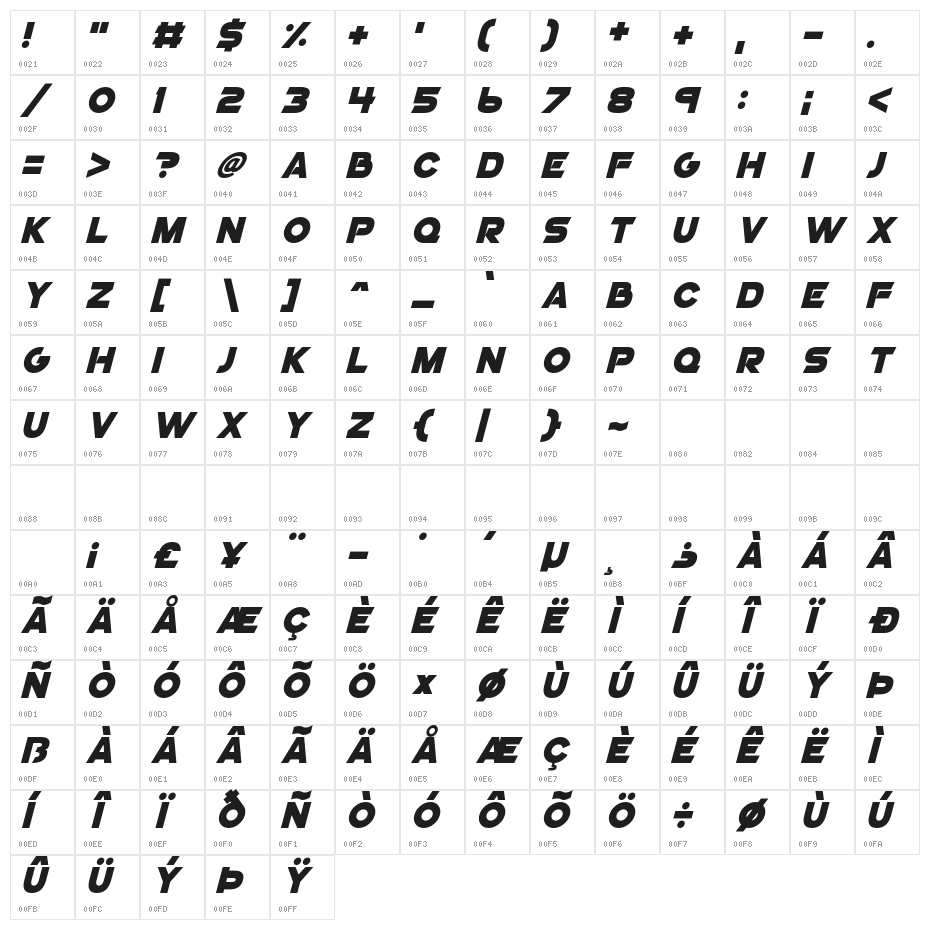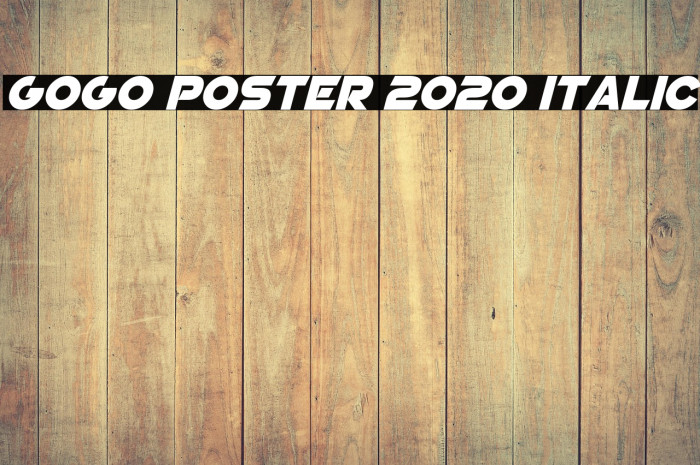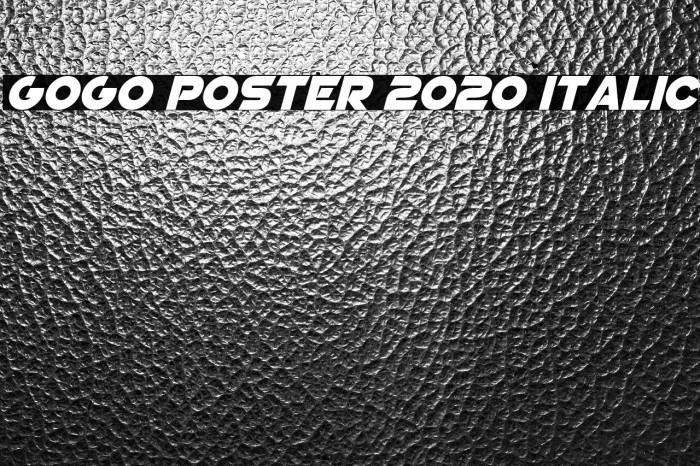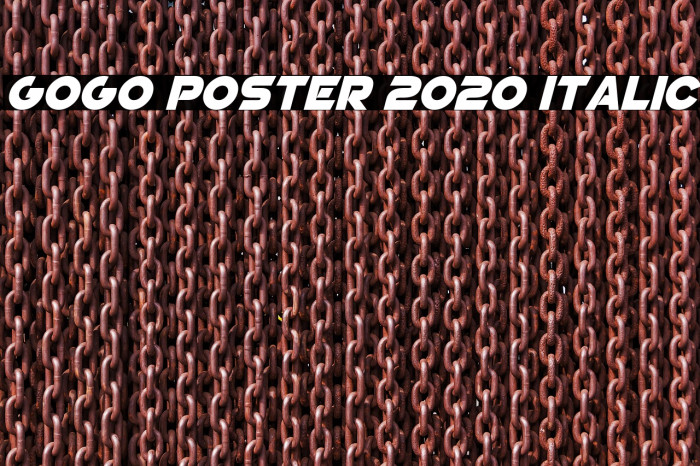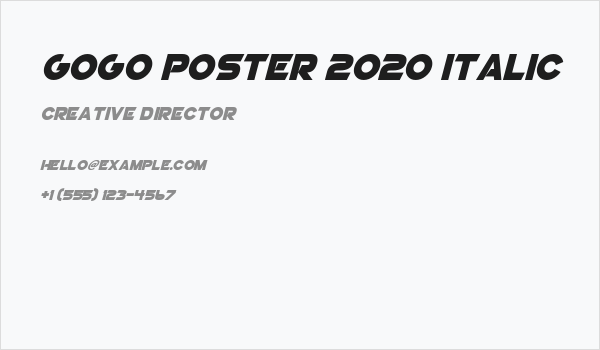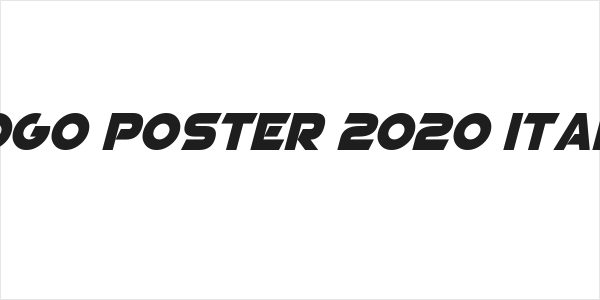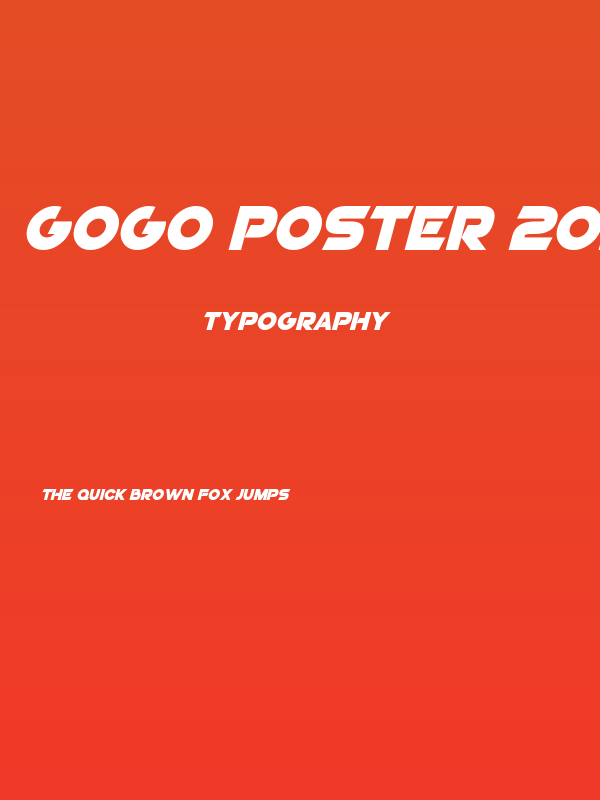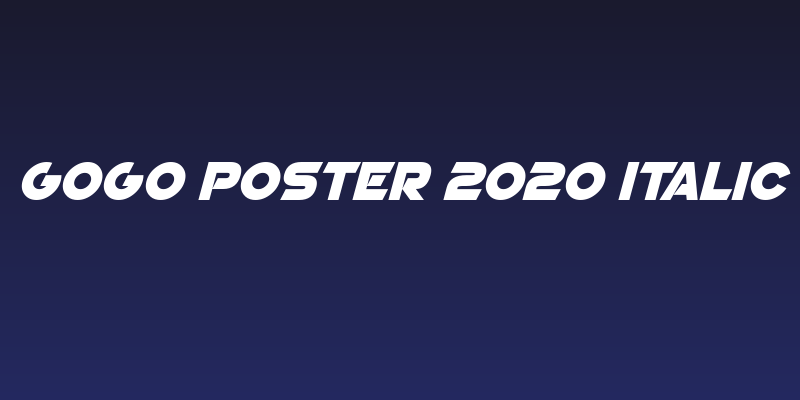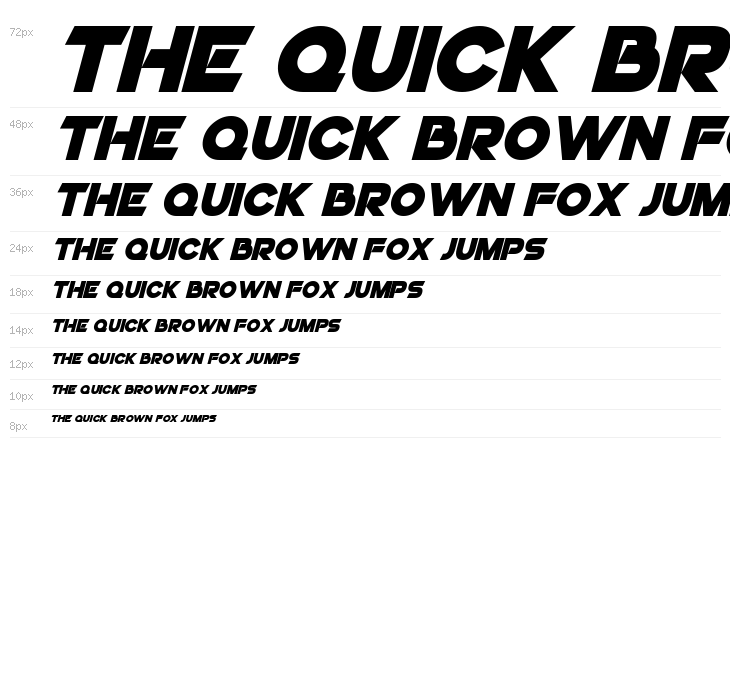
GoGo Poster 2020 Italic Font
GoGo Poster 2020 Italic Description
This font features a bold and dynamic design with a strong italic slant, giving it a sense of motion and energy. The characters are thick and robust, with a modern and futuristic aesthetic. The uppercase and lowercase letters maintain a consistent style, with sharp angles and clean lines. The numbers and special characters are equally bold, making them stand out prominently. This font is ideal for projects that require a striking and impactful visual presence.
| Proposed Projects | Ideal for posters, headlines, branding, and advertising materials that need a bold and energetic look. |